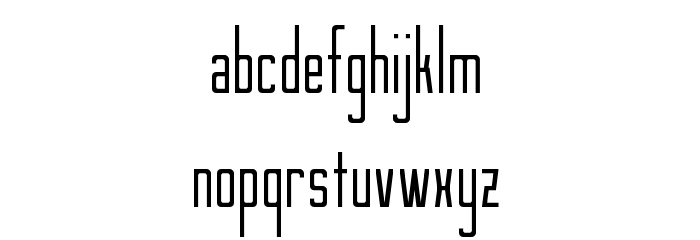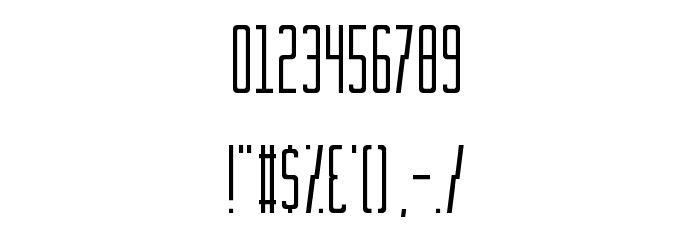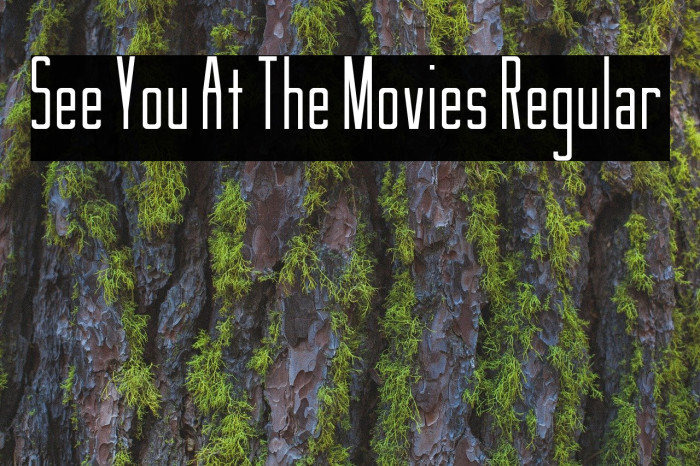
See You At The Movies Regular Font
This font features a tall and narrow design with a distinctly modern and geometric appearance. The characters are elongated, giving a sleek and sophisticated look. The uppercase letters maintain a consistent height, while the lowercase letters are slightly shorter, preserving readability. The numbers are uniform and align well with the overall style. Special characters are included, maintaining the same geometric and narrow aesthetic. The font's clean lines and minimalistic design make it suitable for contemporary projects.
A modern, geometric, and narrow font with a sleek design.
- Proposed Projects: Ideal for movie posters, modern branding, digital media, and minimalist design projects.